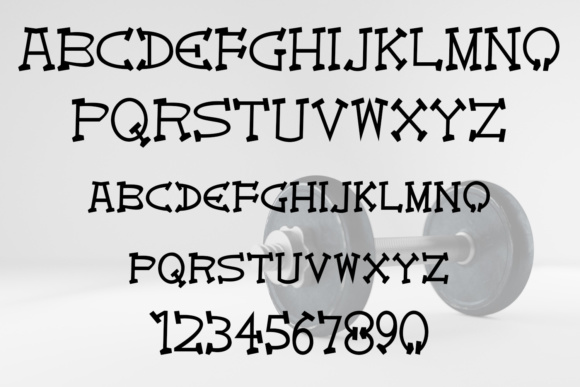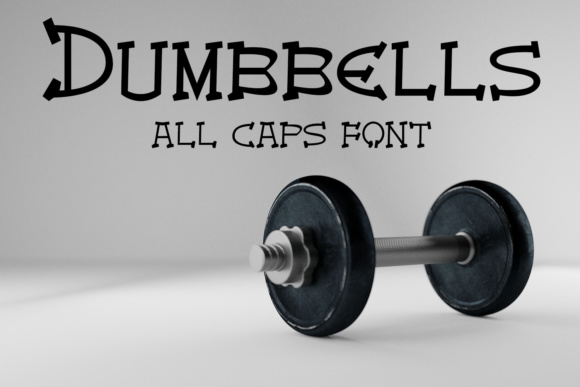
Introducing EP Dumbbells Font: The Ultimate All-Caps Display Font for Designers and Crafters
Are you a designer or crafter looking for a unique and stylish font to elevate your projects? Look no further than EP Dumbbells Font, a stunning all-caps display font perfect for a variety of applications. In this article, we’ll dive into the features and benefits of EP Dumbbells Font, and explore how it can be used to add a touch of elegance and sophistication to your designs.
What is EP Dumbbells Font?
EP Dumbbells Font is a carefully crafted all-caps display font designed to make a statement. With its bold and eye-catching design, this font is ideal for use in wedding cards, quotes, headings, blogs, logos, invitations, and more. The font includes a comprehensive character set, featuring all caps, punctuation, and numbers, ensuring that you have everything you need to create stunning text-based designs.
Key Features of EP Dumbbells Font
- All-Caps Design: EP Dumbbells Font is an all-caps display font, perfect for creating bold and eye-catching text.
- Comprehensive Character Set: The font includes a wide range of characters, including all caps, punctuation, and numbers.
- Versatile: EP Dumbbells Font can be used in a variety of applications, from wedding cards and invitations to headings and logos.
- Elegant and Sophisticated: The font’s bold and stylish design adds a touch of elegance and sophistication to any project.
Uses for EP Dumbbells Font
EP Dumbbells Font is a versatile font that can be used in a wide range of applications. Here are just a few ideas to get you started:
- Wedding Cards and Invitations: Add a touch of elegance and sophistication to your wedding stationery with EP Dumbbells Font.
- Headings and Titles: Use EP Dumbbells Font to create bold and eye-catching headings and titles for your blog posts, articles, and more.
- Logos and Branding: EP Dumbbells Font is perfect for creating unique and stylish logos and branding materials.
- Quotes and Inspirational Text: Use EP Dumbbells Font to create stunning quotes and inspirational text for social media, posters, and more.
Why Choose EP Dumbbells Font?
With so many fonts available, why choose EP Dumbbells Font? Here are just a few reasons why this font stands out from the crowd:
- Unique Design: EP Dumbbells Font features a bold and eye-catching design that’s sure to grab attention.
- High-Quality: The font is carefully crafted to ensure that it’s of the highest quality, with clean lines and precise curves.
EP Dumbbells Font is a stunning all-caps display font that’s perfect for designers and crafters looking to add a touch of elegance and sophistication to their projects. With its bold and eye-catching design, comprehensive character set, and versatile uses, this font is sure to become a favorite in your design arsenal. So why wait? Download EP Dumbbells Font today and start creating stunning text-based designs that will leave a lasting impression.